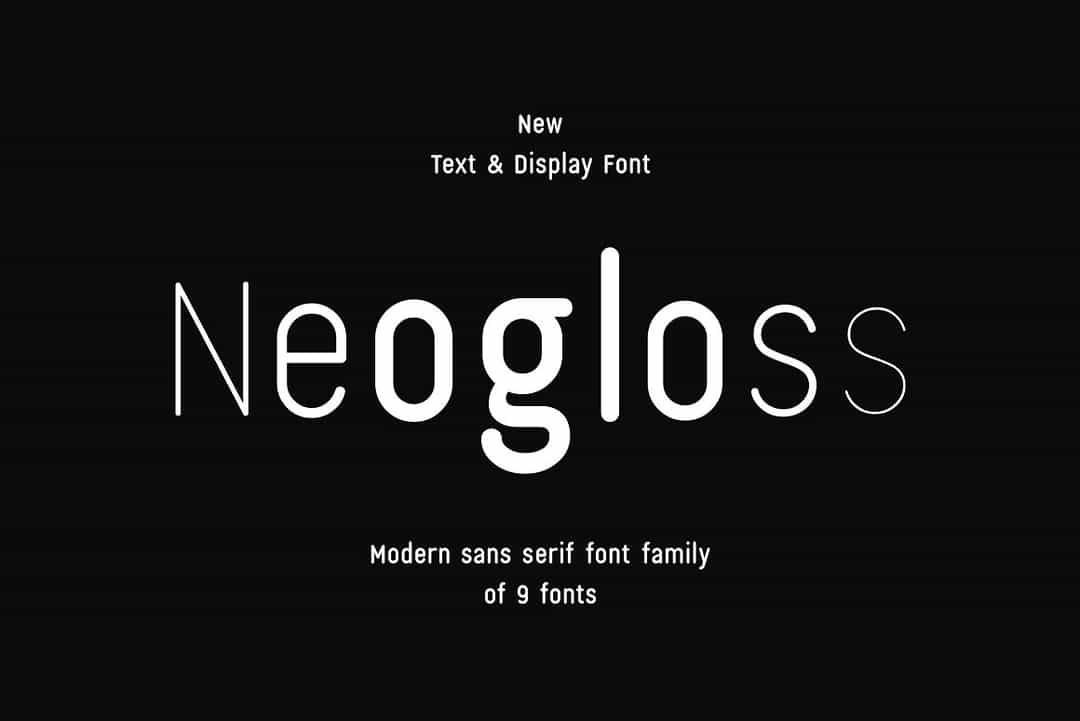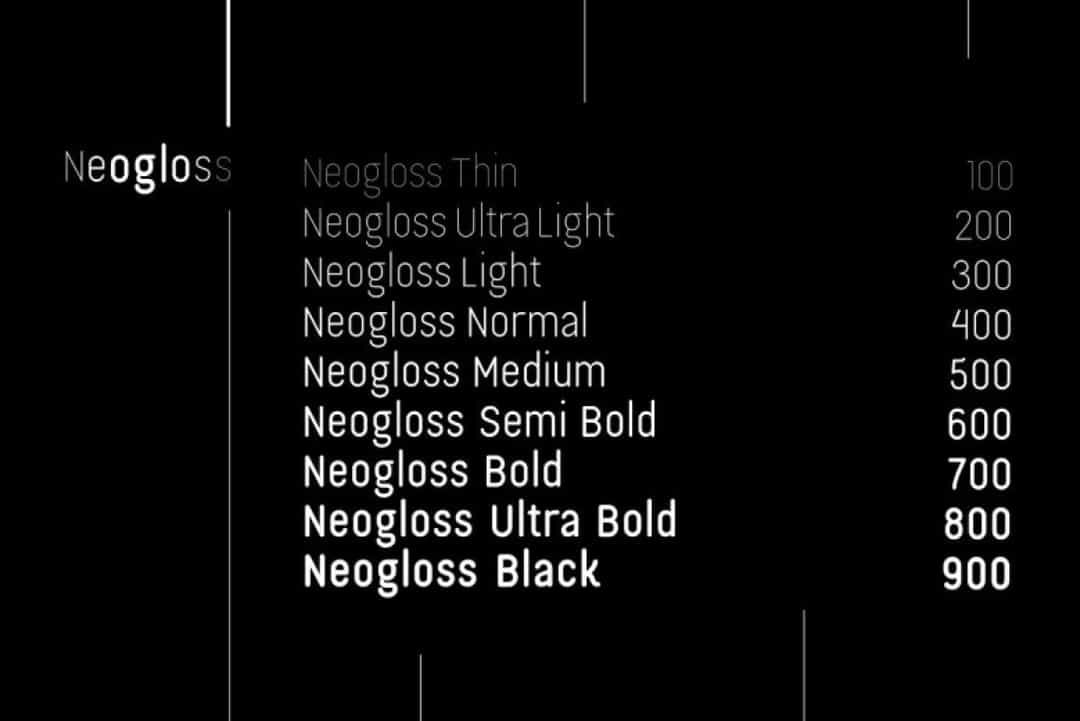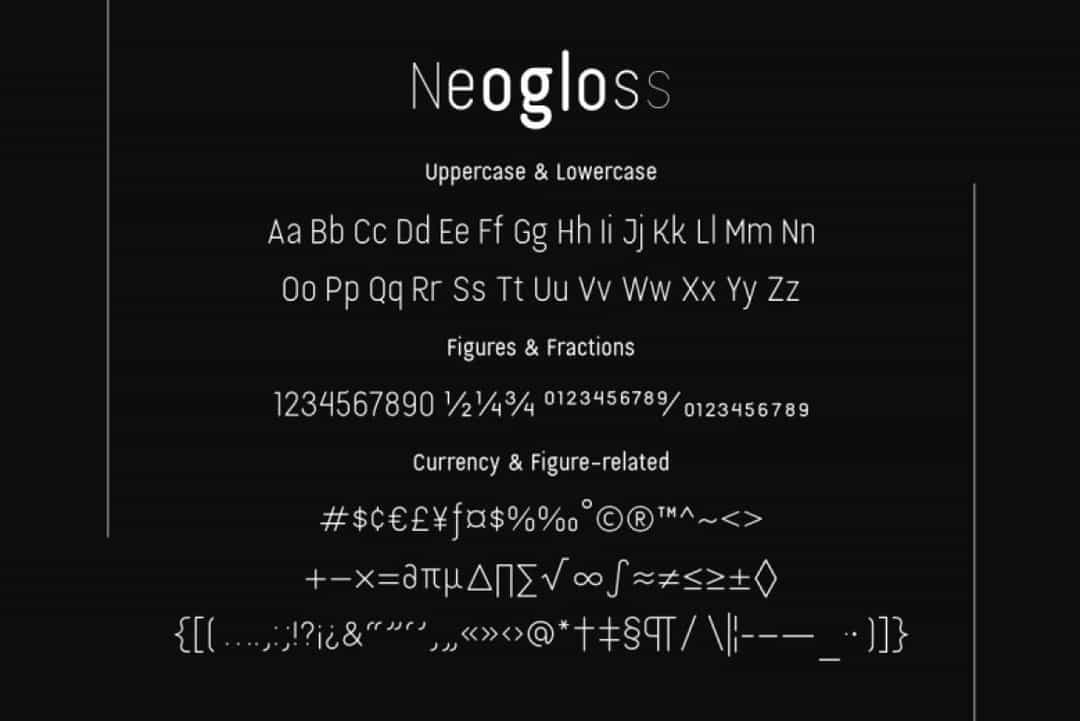
Neogloss is an elegant sans serif font with lots of character, making it an excellent choice for family-oriented websites, kid’s products and natural beauty companies. Neogloss provides a clean yet natural aesthetic to any project it touches upon.